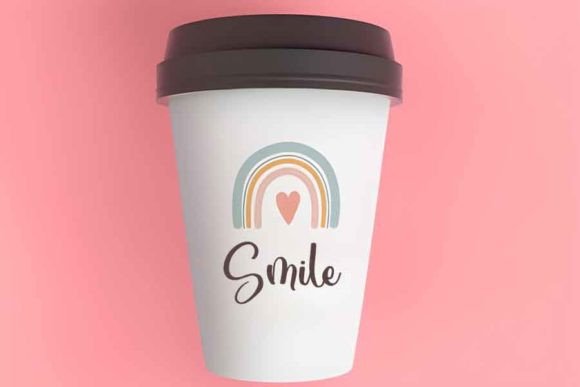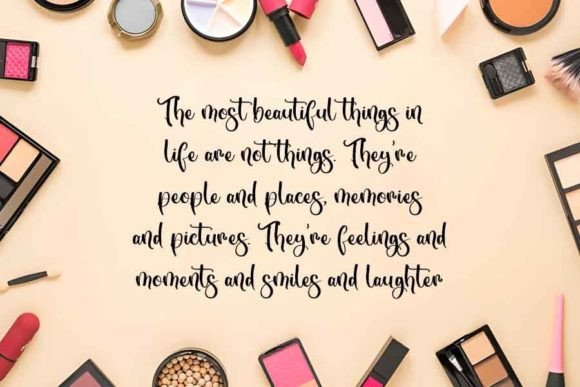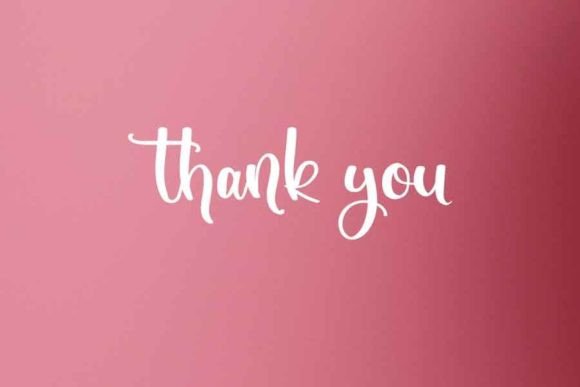
Introduction to Pretty Women Font
Pretty Women is a delicate and well-balanced handwritten font.
It looks stunning on wedding invitations, thank you cards, quotes, greeting cards, logos, business cards, and every other design which needs a customized touch .
Key Features of Pretty Women Font
Why Choose Pretty Women Font?